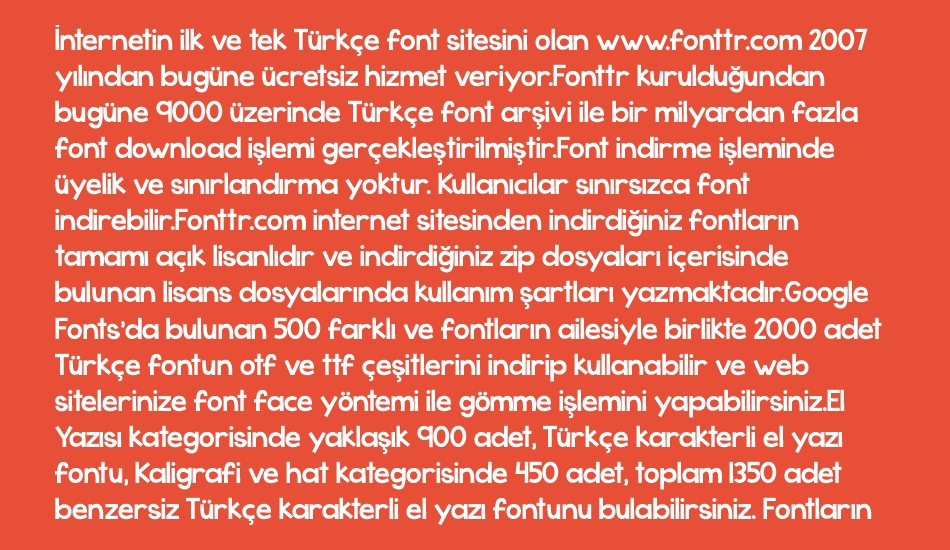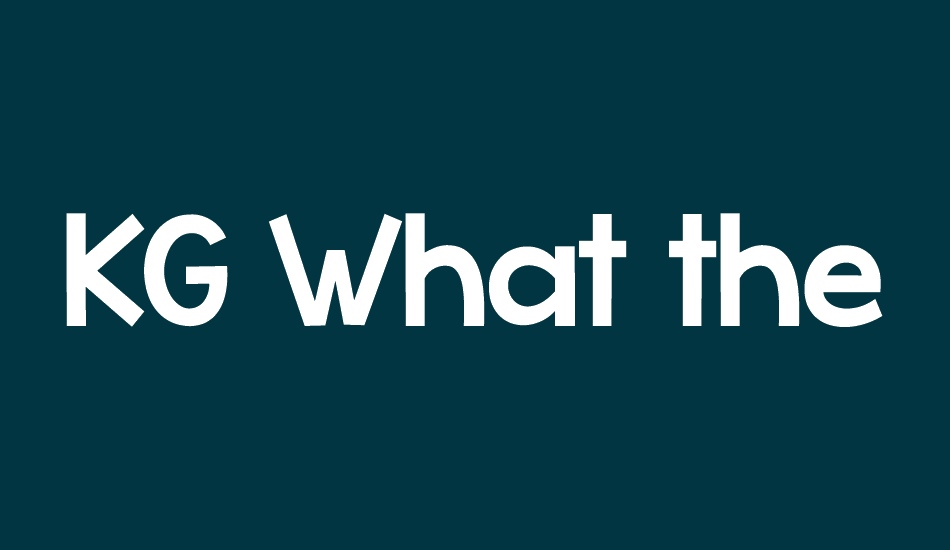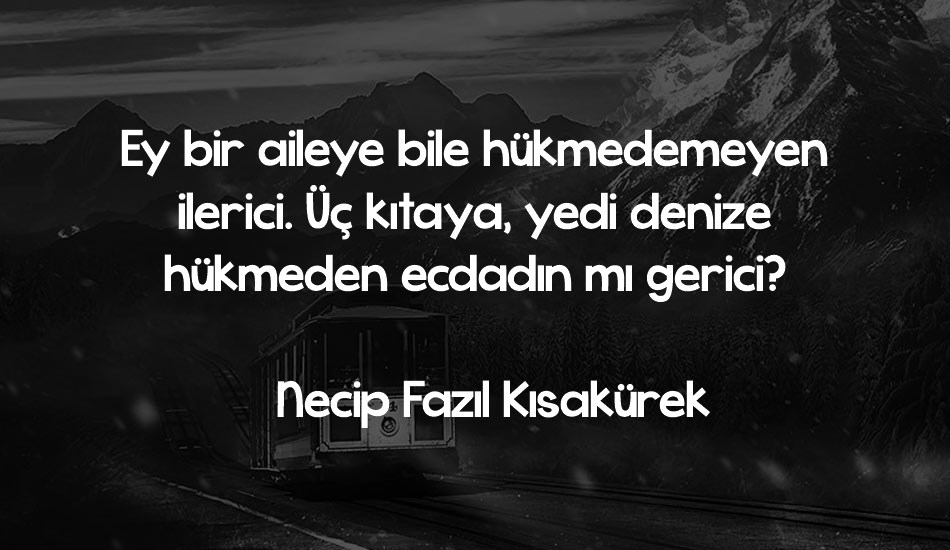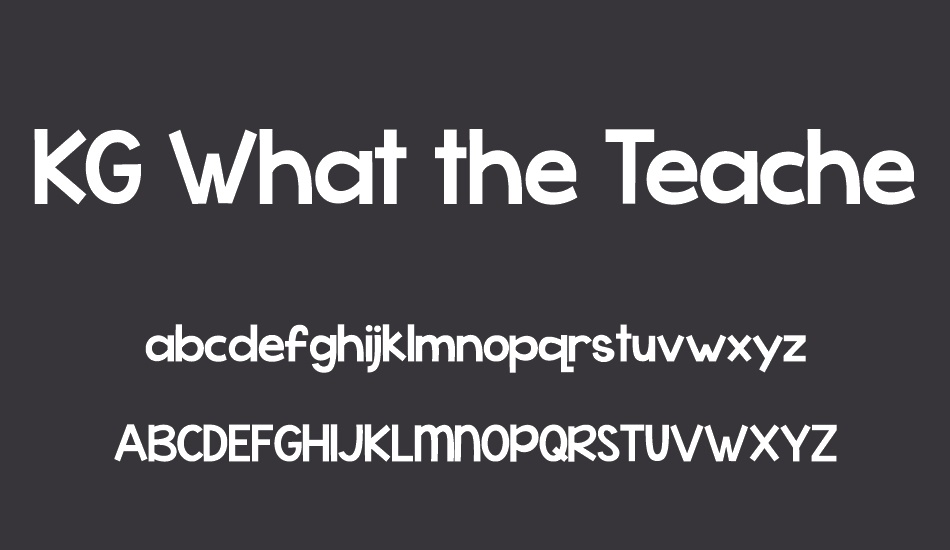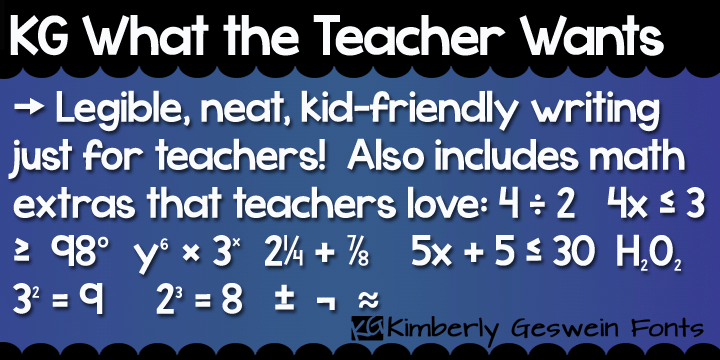
KG What the Teacher Wants font
KG What the Teacher Wants
This special font was created especially for an elementary teacher, Rachelle Smith. Rachelle's highly-popular teaching blog, What the Teacher Wants (http://whattheteacherwants.blogspot.com/) is a great resource for elementary teachers. She also sells educational products at Teachers Pay Teachers: http://www.teacherspayteachers.com/Store/Rachelle-Smith
This font is exactly "What the Teacher Wants"- it is neat, legible, friendly, and contains enough glyphs to cover 86 languages and little extras like math symbols!